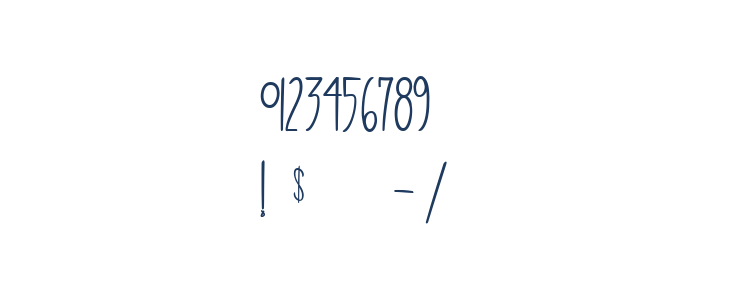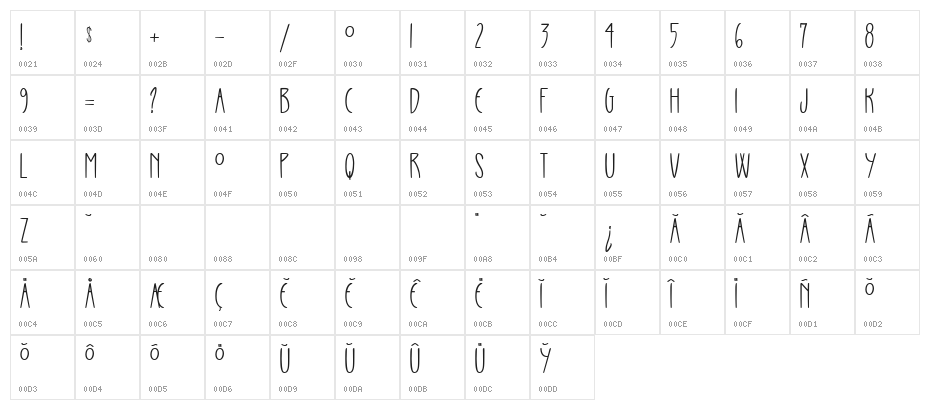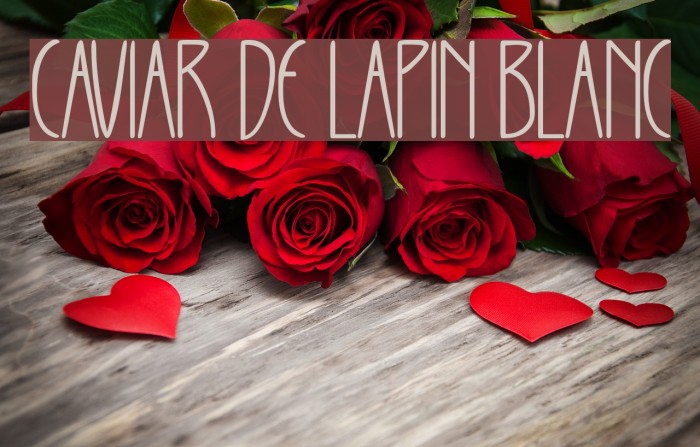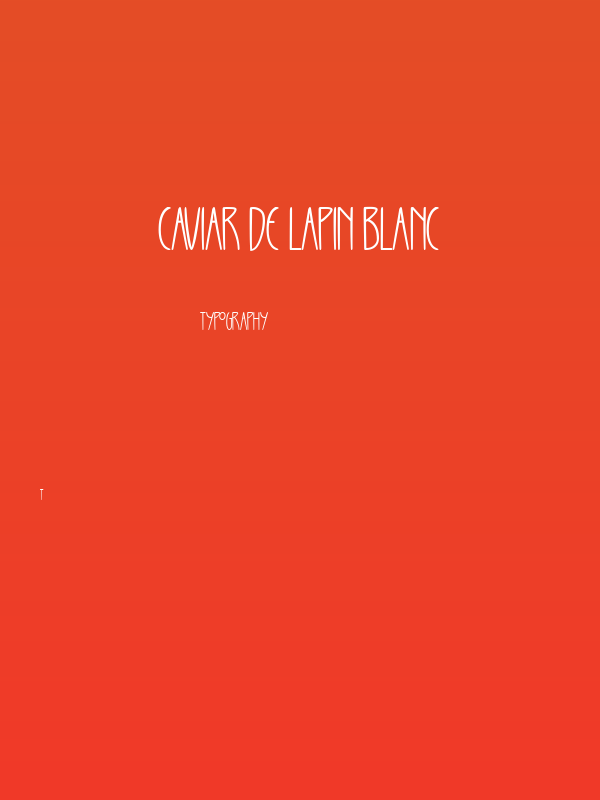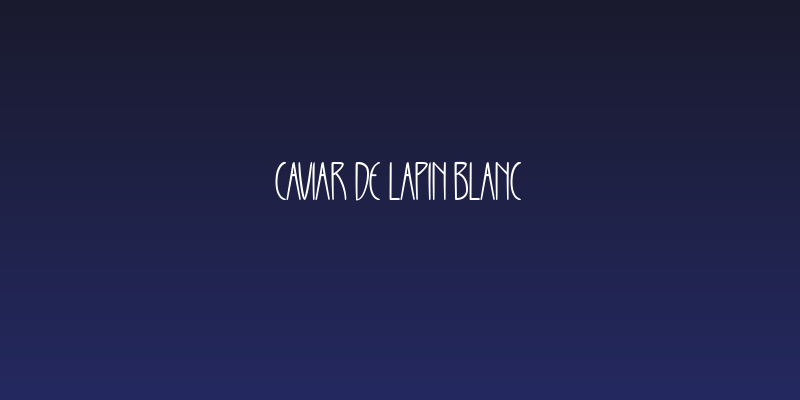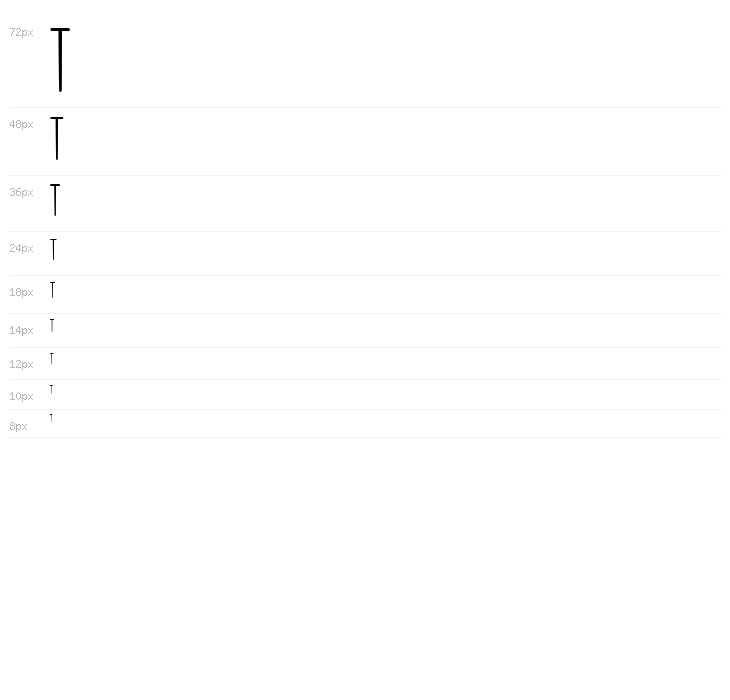
CAVIAR DE LAPIN BLANC Font
CAVIAR DE LAPIN BLANC Description
This font features a unique and elegant design with tall, narrow letters that exude a sense of sophistication and modernity. The characters are elongated with a consistent stroke width, giving it a sleek and streamlined appearance. The uppercase letters have a distinct geometric quality, while the lowercase letters maintain a harmonious balance with their slightly rounded forms. The numerals are designed to complement the overall style, maintaining the same height and width proportions. Special characters are thoughtfully integrated, ensuring versatility in various design contexts. This font is ideal for projects that require a touch of elegance and modern flair.